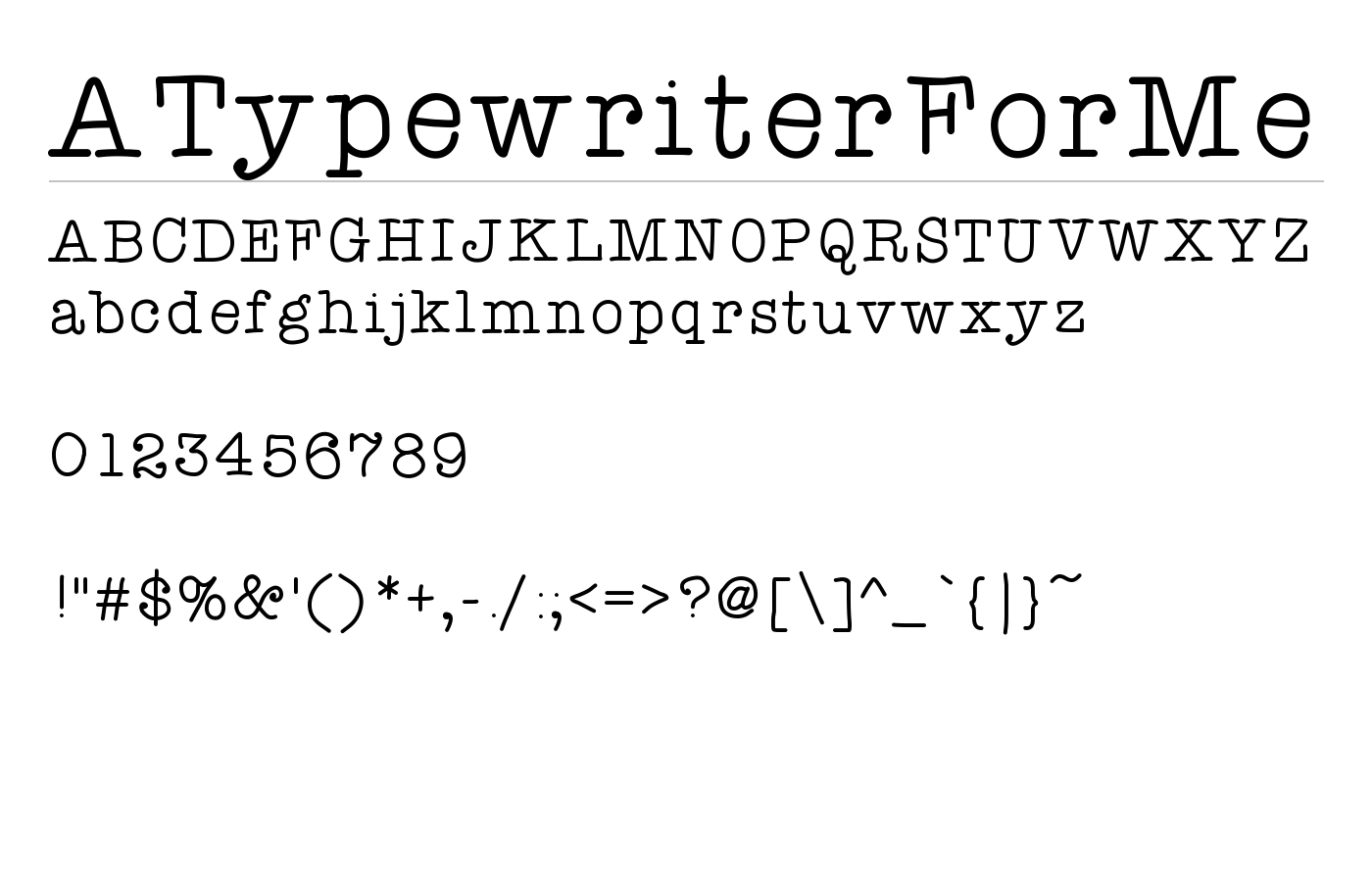
ATypewriterForMe is a monospaced serif font that evokes the classic look of vintage typewriter text with its thin, slightly irregular strokes and slab-like serifs. It features a medium weight and normal width, with a mechanical, somewhat playful feel created by its distinct double-story lowercase 'a' and 'g', and quirky details like the curled ampersand and unique numeral shapes. Perfect for designs seeking a nostalgic, retro vibe, it works well in creative projects, editorial layouts, and branding that wants to capture a handcrafted, authentic typewriter charm.
ATypewriterForMe Font
About ATypewriterForMe Font